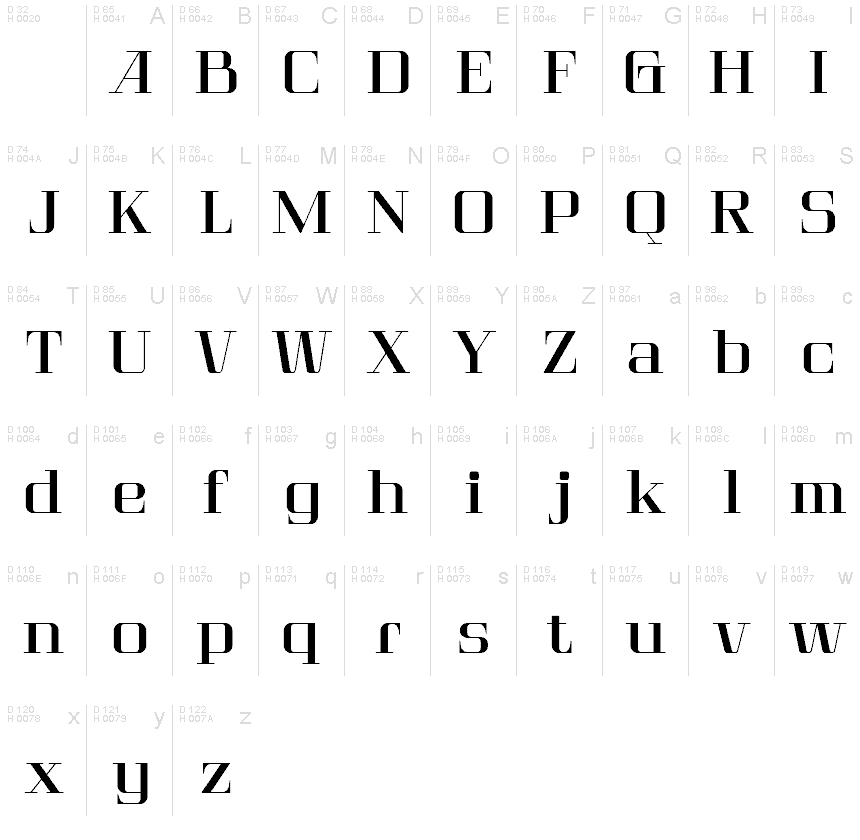
CS Aspire font is a modern multilingual serif font by Craft Supply Co. Relying on mathematical calculations and geometric shapes, the text font has its individual characters elegantly carved to perfection. With 7 weights available, the clean typeface doesn’t only allow communicating information in style but also ensures that information is received most efficiently with practiced ease.
Professional and contemporary uses cover websites, mobile apps, and computer software among other technological interfaces. Companies involved in data visualization and implementation can install the free typeface with user manuals, reports, guides along with larger projects like thesis papers enjoying it as well. Reading enthusiasts will also enjoy CS Aspire font in ebooks and magazines.